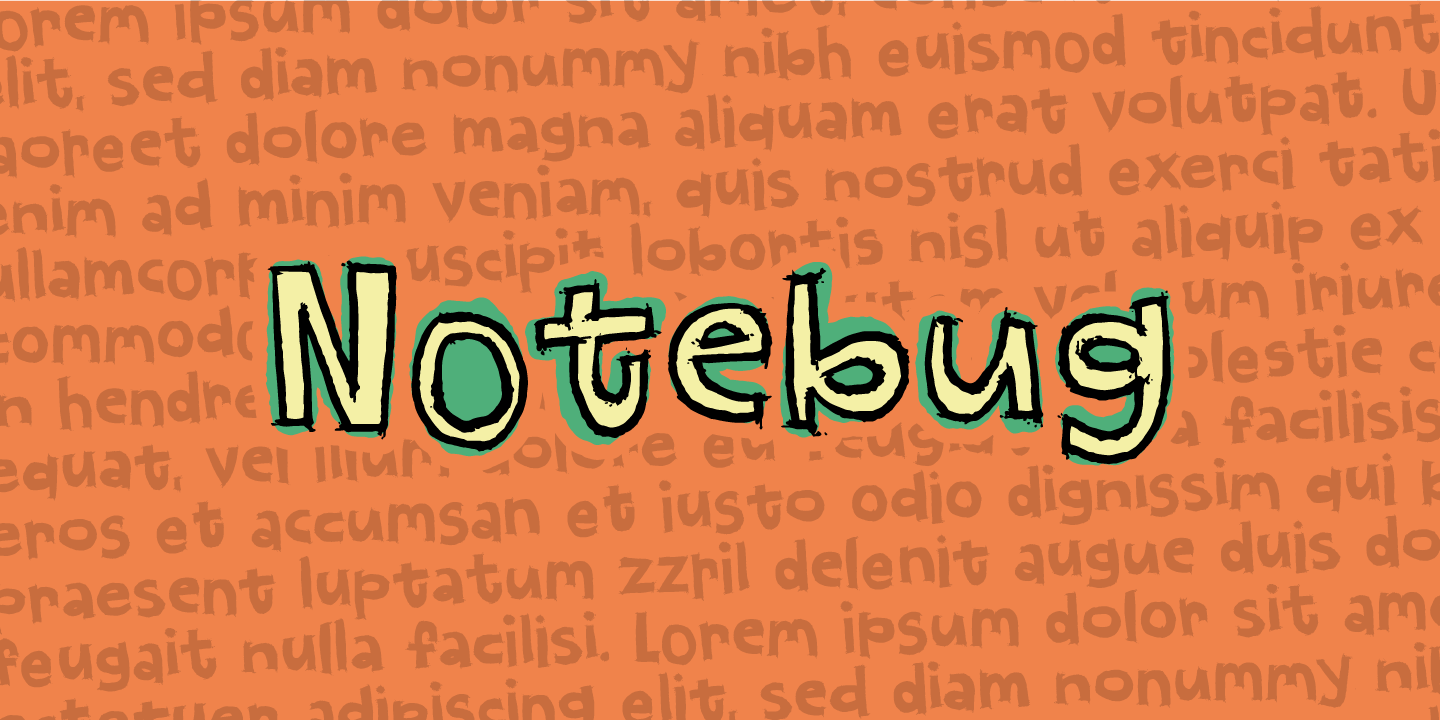
Notebug Font is an excellent choice for projects that aim for a charming, handwritten, and casual aesthetic, often reminiscent of personal notes or journal entries. It's perfectly suited for personal blogs, creative journals, bulletin board graphics, informal invitations, and quirky branding for small businesses. Its approachable and unpretentious style makes it ideal for conveying warmth and a personal touch.
What makes Notebug Font so exciting is its ability to infuse designs with an authentic, human feel. It often features slightly irregular baselines, subtle variations in stroke, and a natural flow that mimics genuine handwriting, making your text feel relatable and inviting. This font doesn't just display words; it shares them with a friendly, intimate voice, perfect for creating a comforting and sincere atmosphere.
The Notebug Font family typically offers variations to enhance its versatility and creative potential. You'll often find Notebug Regular as the primary style, and sometimes accompanying bold or italic versions for emphasis. Many handwritten fonts, including this one, might also include ligatures or alternate characters to provide more authentic connections between letters and a truly unique, custom look. These elements ensure you can maintain a consistent, charming theme across diverse design applications. For those ready to explore its endearing qualities, Notebug Font Free Download offers a fantastic opportunity to see its capabilities firsthand.